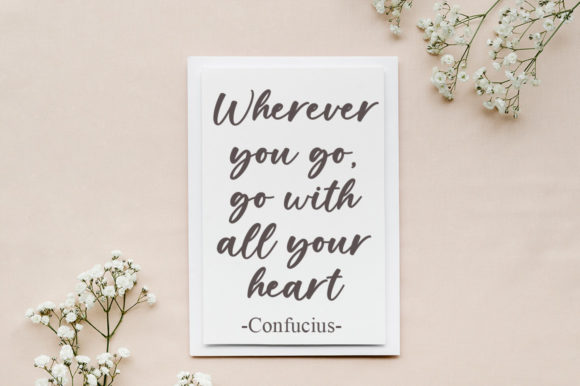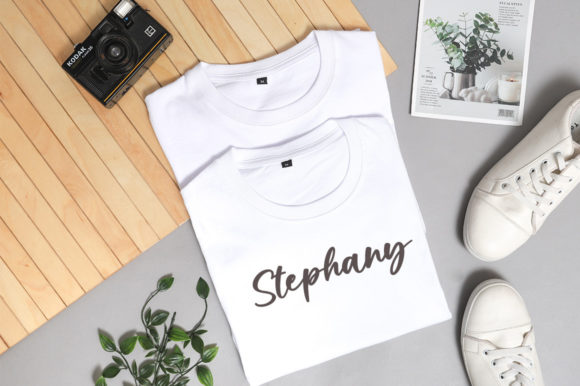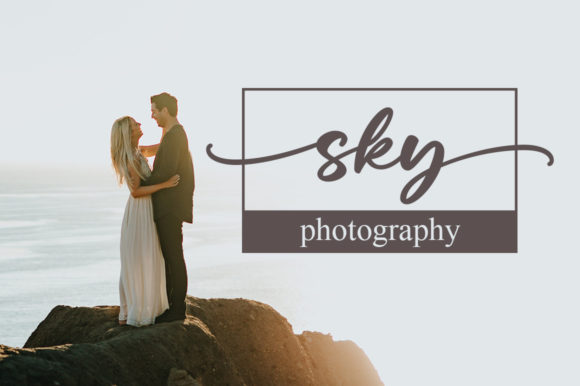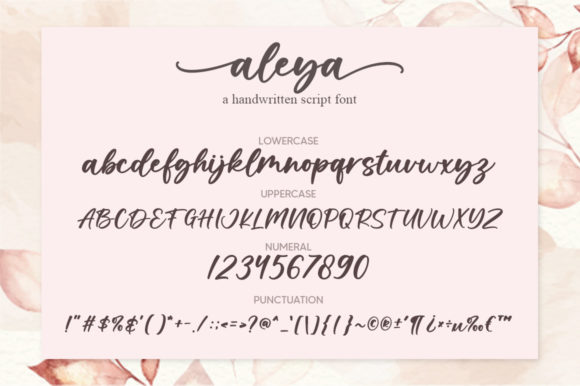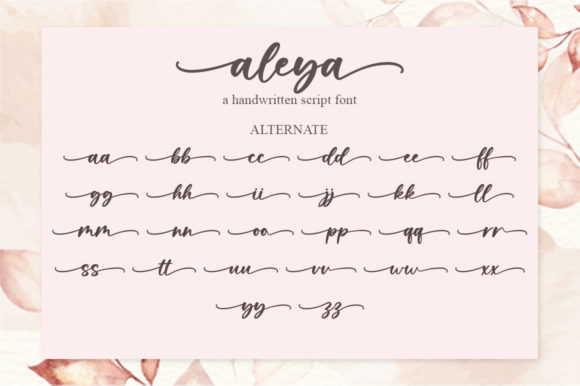
The Elusive Font: My Journey with Aleya
I still remember the frustration of working on a design project, hours spent searching for the perfect font, only to come up empty-handed. My client wanted something elegant, yet playful; delicate, yet impactful. It was then that I stumbled upon Aleya, a beautiful handwritten font that would change my design game forever.
Aleya: A Delicate yet Powerful Font
Aleya is a delicate, elegant, and flowing handwritten font that has become a staple in my design toolkit. Its beautiful and well-balanced characters make it an excellent match for a wide range of designs, from wedding invitations to branding materials. One of the standout features of Aleya is its PUA encoding, which allows easy access to all glyphs and swashes.
An Honest Review of Aleya
• ✨ Elegant and flowing design: Aleya’s handwritten style is both sophisticated and approachable.
• ✅ PUA encoded for easy access: No more tedious searching for the perfect glyph or swash.
• 💫 Highly versatile: Aleya pairs well with a variety of design styles and themes.
• 🔍 Beautifully balanced characters: Each letter and number is carefully crafted for optimal readability.
While Aleya is an exceptional font, there are a few minor considerations to keep in mind:
• ⚠️ Some characters may require manual kerning: As with any font, you may need to adjust the spacing between certain letters for optimal results.
• 🤔 Not ideal for body text: Aleya’s elegant design is better suited for headings, titles, and short paragraphs.
The Story Behind Aleya
While the origins of Aleya may be shrouded in mystery, it’s clear that its designer was inspired by the beauty of handwritten script. With its flowing lines and delicate curves, Aleya is a testament to the power of typography in evoking emotion and sophistication.
PUA (Private Use Area) encoding allows font designers to include additional characters, glyphs, and swashes that can be accessed easily by users. This means you can unlock Aleya’s full creative potential without needing specialized software.
Q: Is Aleya suitable for body text, or is it better suited for headings?
Aleya’s elegant design makes it more suitable for headings, titles, and short paragraphs. For body text, consider a font with improved readability.